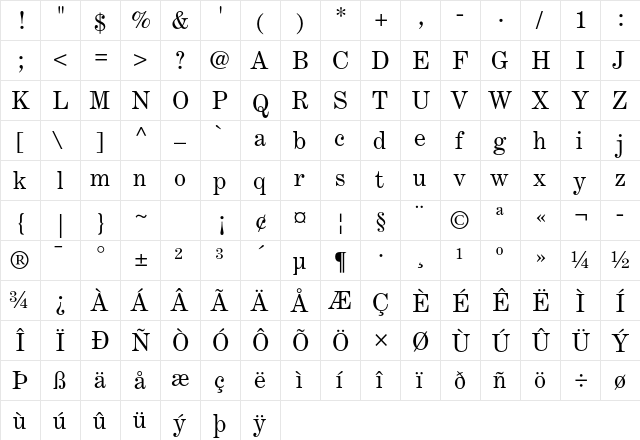
Century Expanded LT Std Roman
| Designer | Linn Boyd Benton |
Design Context for Century Expanded LT Std Typeface
Century Expanded LT Std offers clean, dependable letterforms without strong stylistic allegiance, making it a practical choice for designers who need flexibility. Its slender proportions lend an understated elegance to any composition.